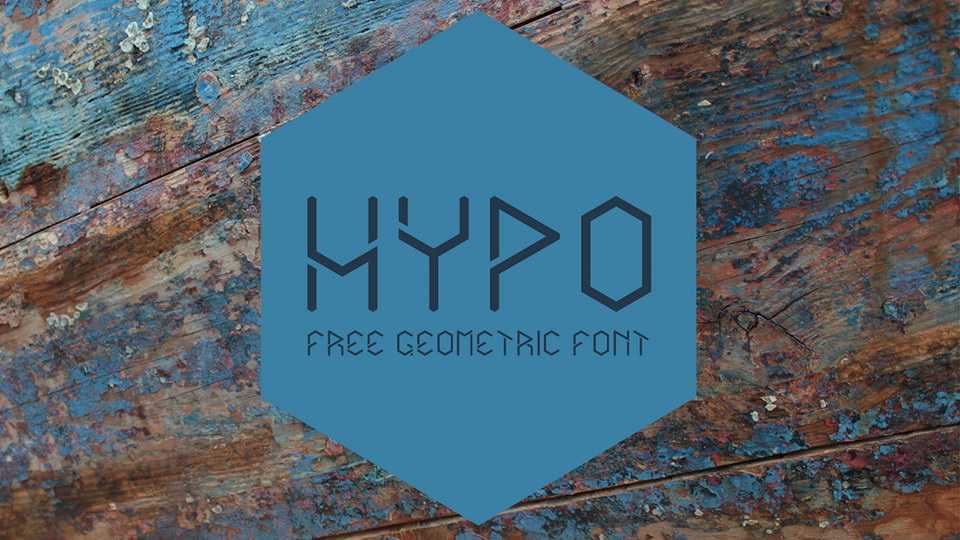
Download Hypo font a geometric hexagonal display typeface in Black and Outlined styles. Hypo font is suitable for futuristic and techno projects, posters, headlines and more.
Designer: Cyrille Leroy